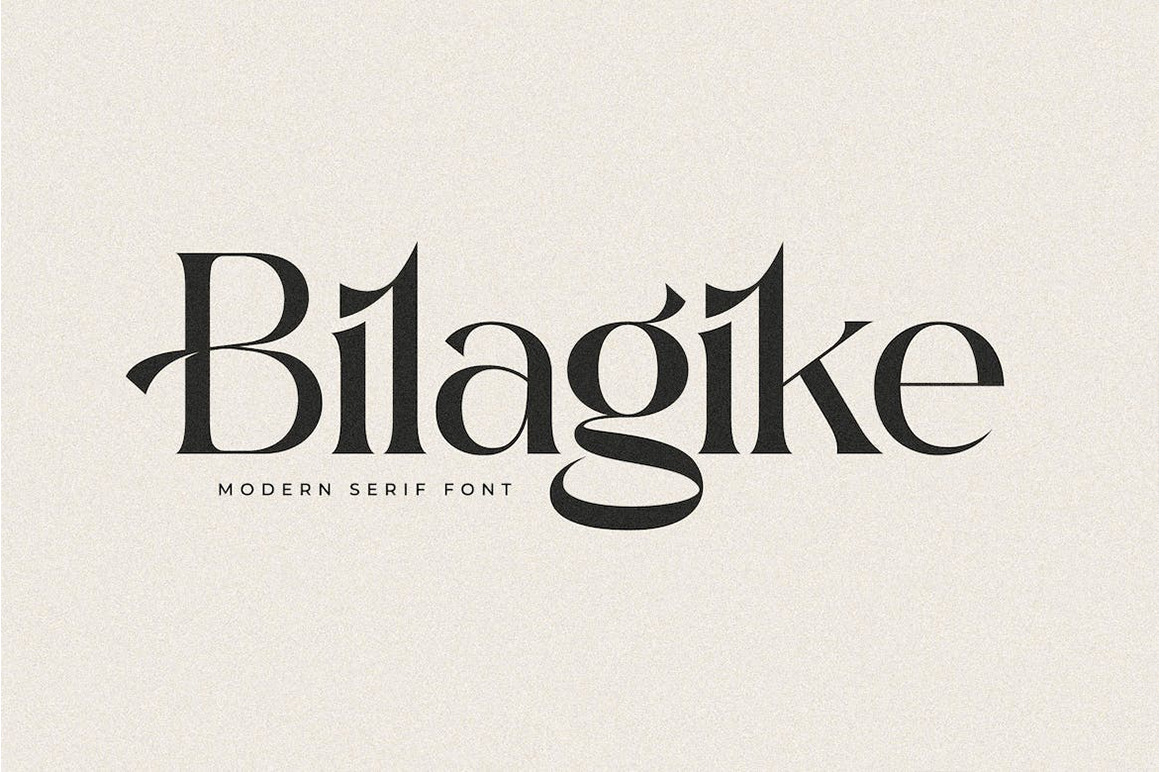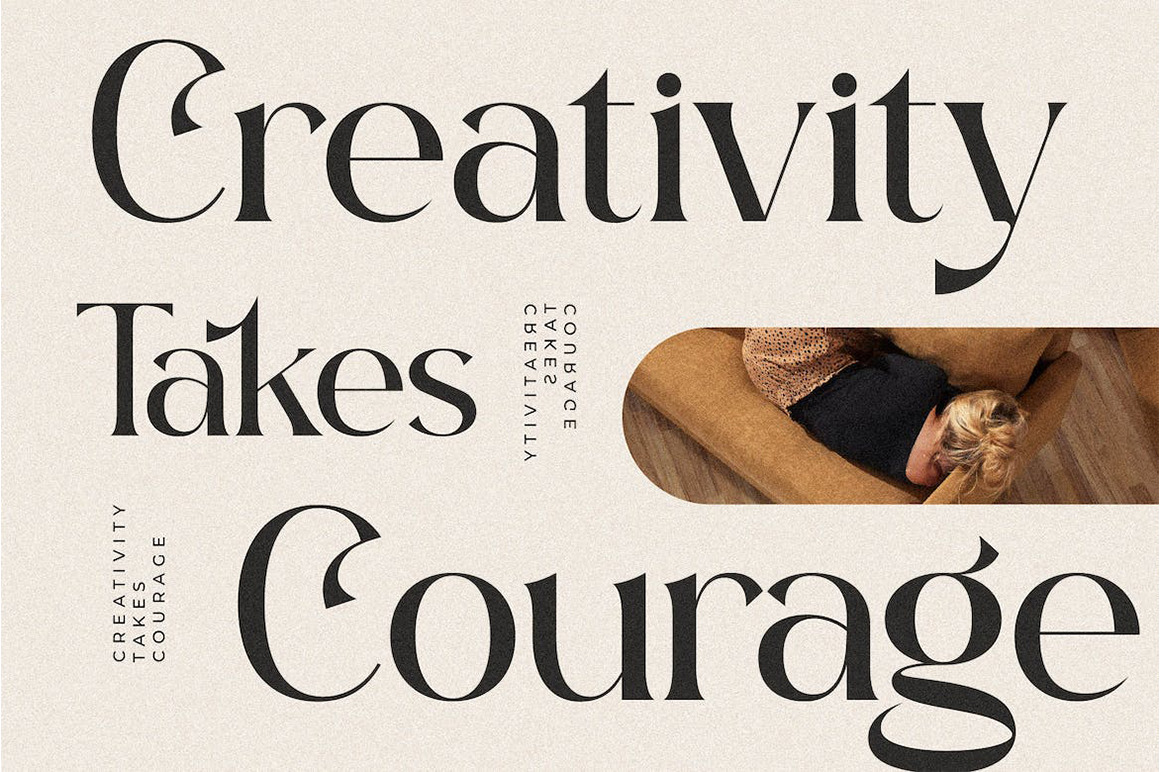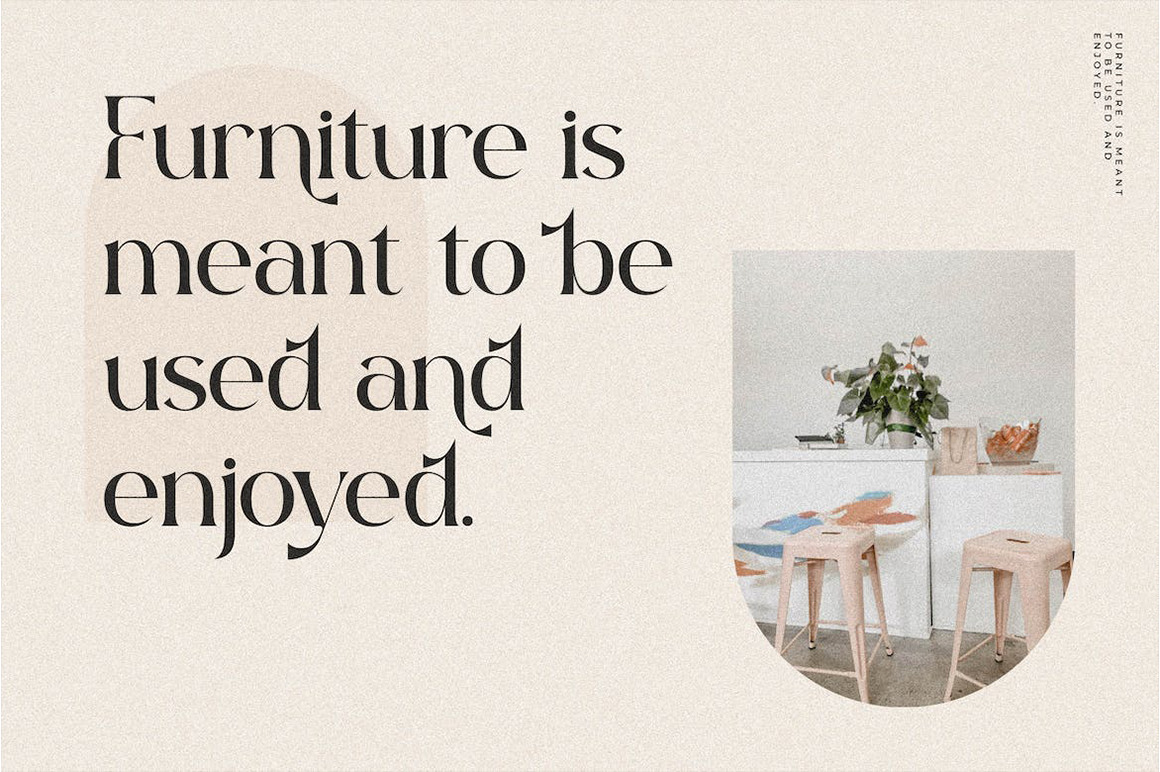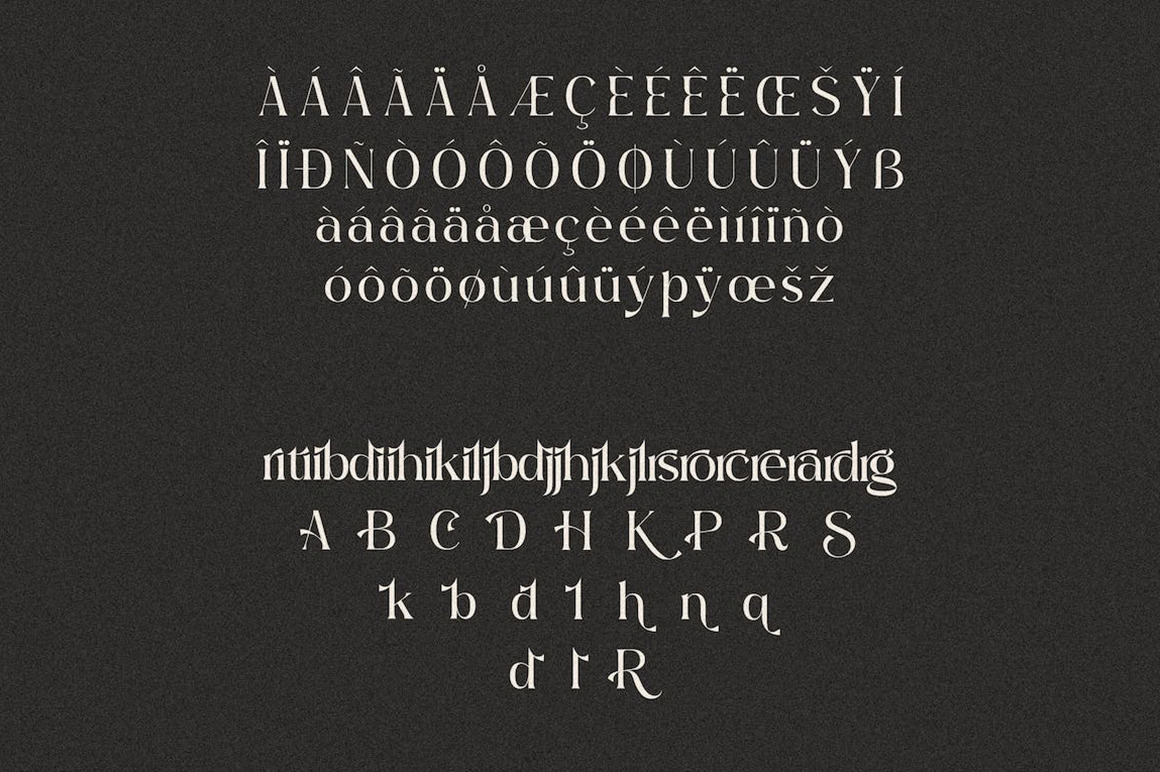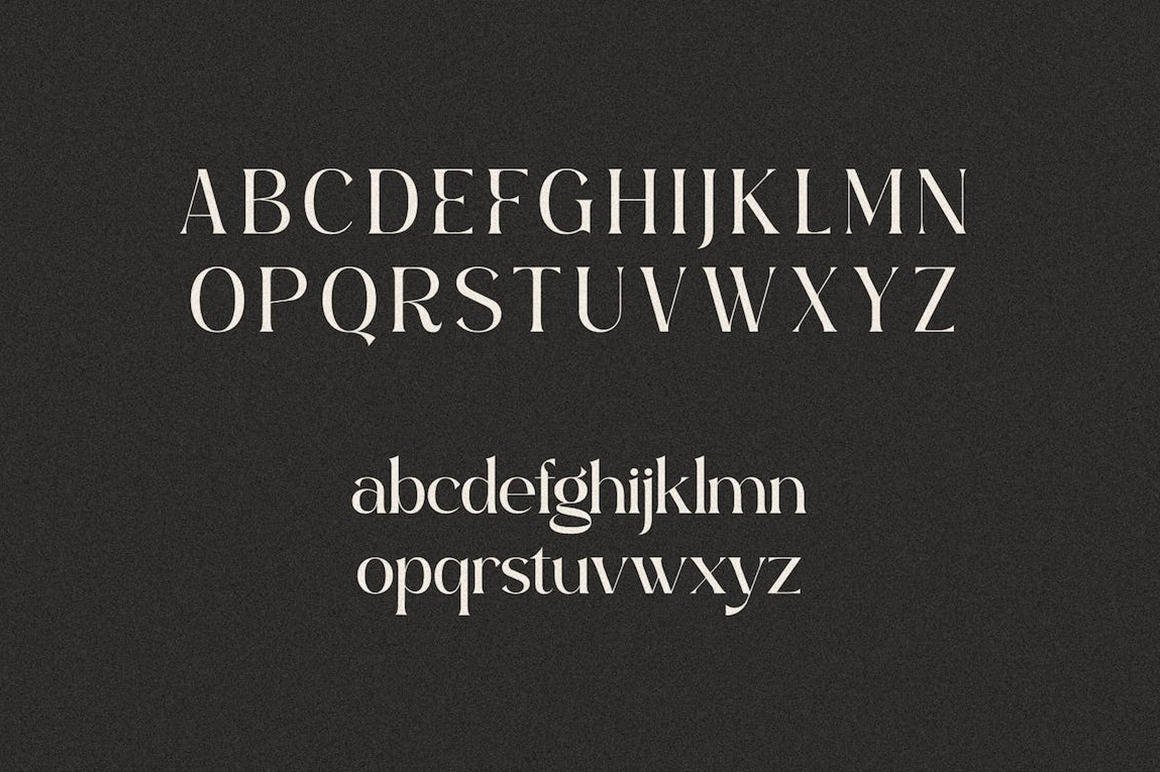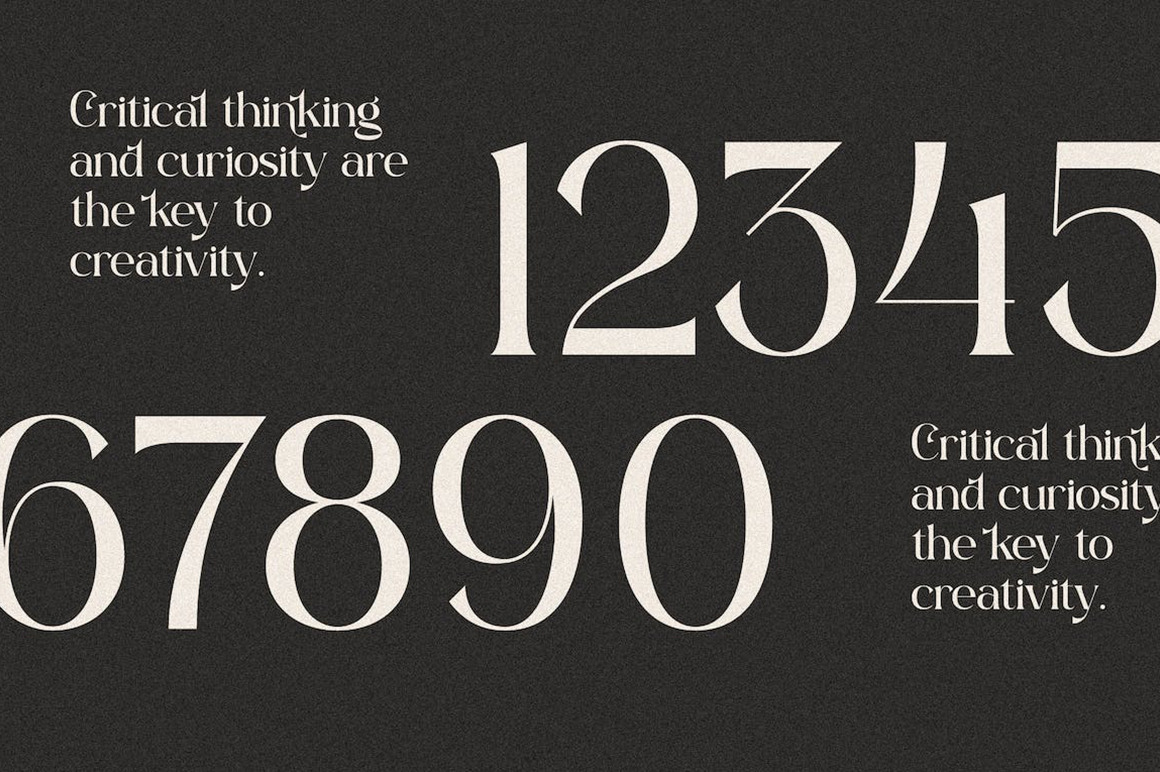
Bilagike Modern Serif Font
Hi ladies & gentlemen, this is one of our fonts suitable to complement your digital and printed creative products. This font is perfect for posters, social media posts, branding, personal projects, etc.